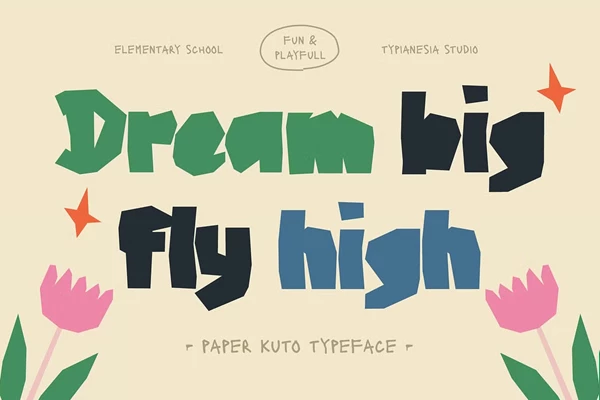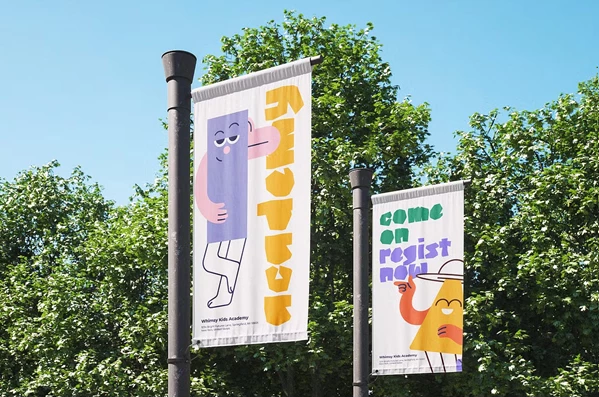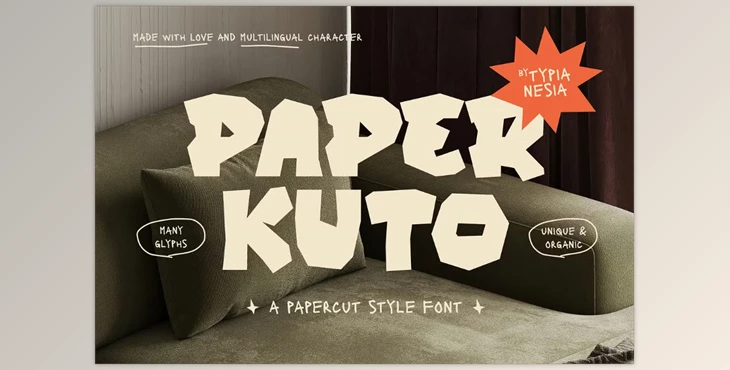
Paper Kuto - Papercut Style Font:
Paper Kuto has the striking and artistic essence of cut-up paper art. Therefore, it can be used in different design projects that require some creativity. Kuto’s papercut style, with its charming rough edges and distinct cut-out traits, resembles that of genuine papercraft and gives a warm and natural touch.
The font can be used for an extensive purpose such as crafts, books for children, creative posters, and inventive branding. Papercut has also uplifted greeting cards, scrapbooks, packaging, game design, and social media graphics. The font Kuto is ideal for projects requiring creativity and nostalgia, with so much flexibility.
"Paper Kuto - Papercut Style Font" Samples: